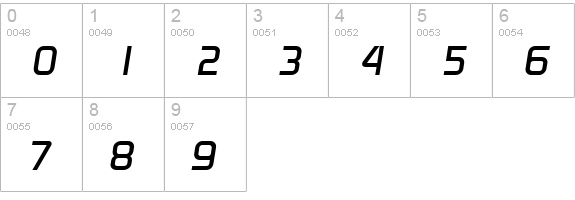
DigitalSerial-BoldItalic Font Details
DigitalSerial-BoldItalic is a sleek and modern font that exudes confidence and professionalism. Its bold and italicized design makes it perfect for creating eye-catching headlines, titles, and branding materials. This versatile font is ideal for various design projects, from logo design to advertising to web graphics. And the best part? DigitalSerial-BoldItalic is available for free download at FontsMarket.com, where you can easily access this high-quality font to enhance your creative projects. Don't miss out on the opportunity to add this stylish and contemporary font to your font collection today!